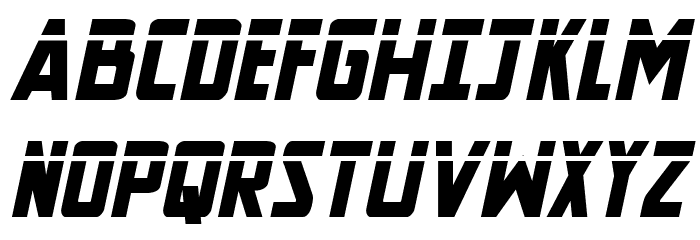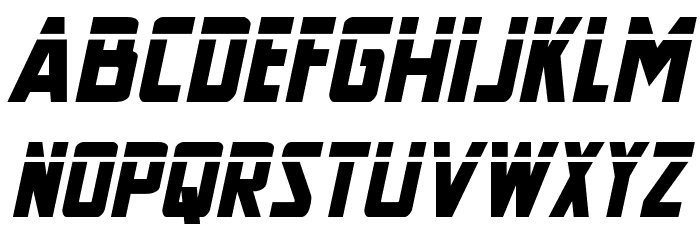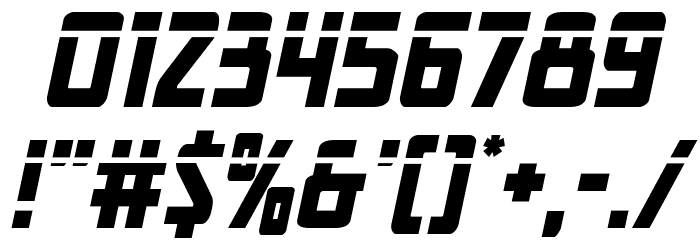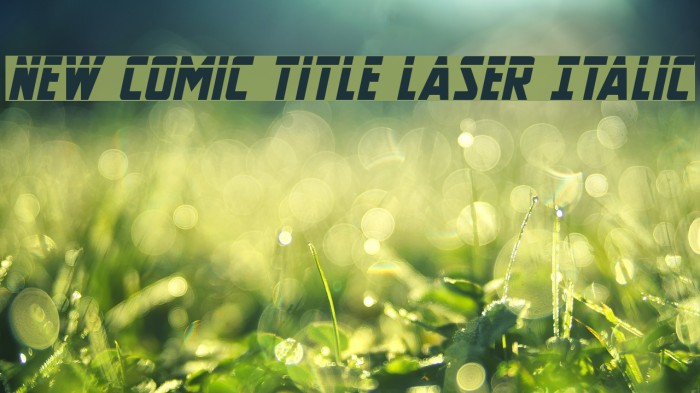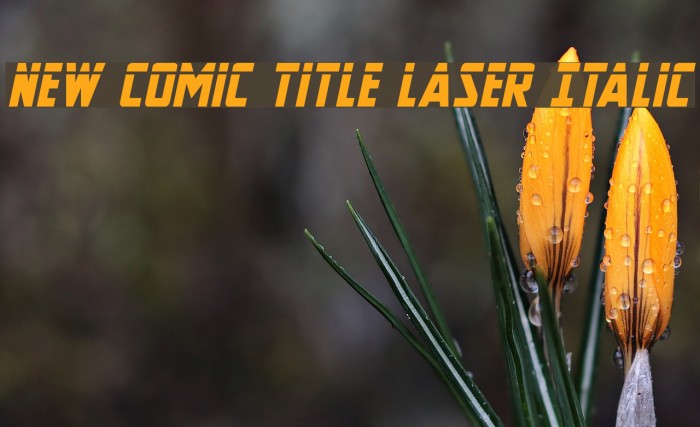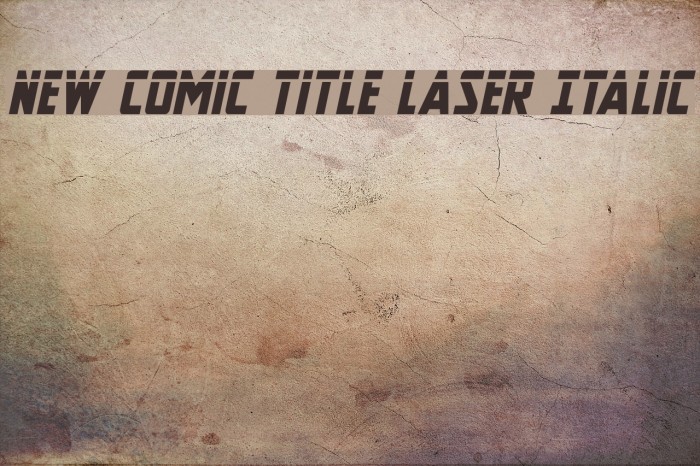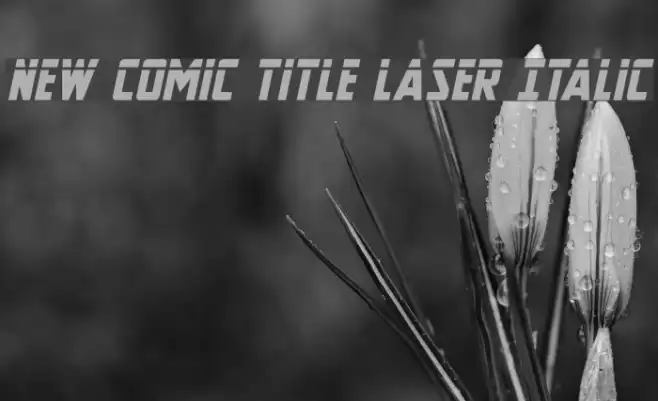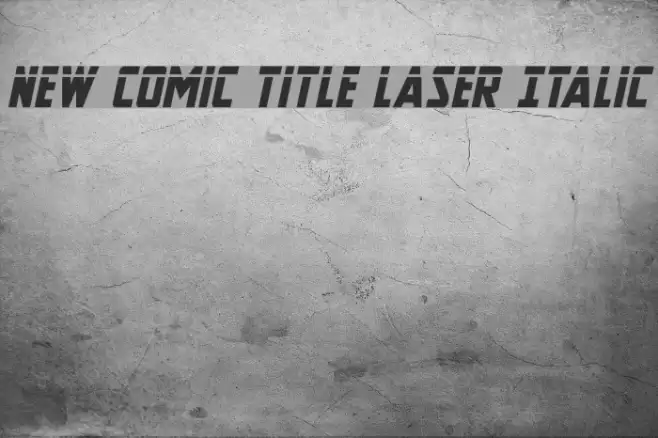
New Comic Title Laser Italic Font
This font features a bold and dynamic style with a futuristic and angular design. The characters are italicized, giving them a sense of motion and energy. The strokes are thick and consistent, providing a strong visual impact. The overall appearance is sleek and modern, suitable for attention-grabbing headlines or titles. The uppercase and lowercase letters maintain a uniform style, with sharp edges and a slightly condensed form. The numbers and special characters follow the same design principles, ensuring coherence across all elements.
A bold, italicized font with a futuristic and angular design.
- Proposed Projects: Ideal for comic book titles, sci-fi posters, video game graphics, and dynamic branding.